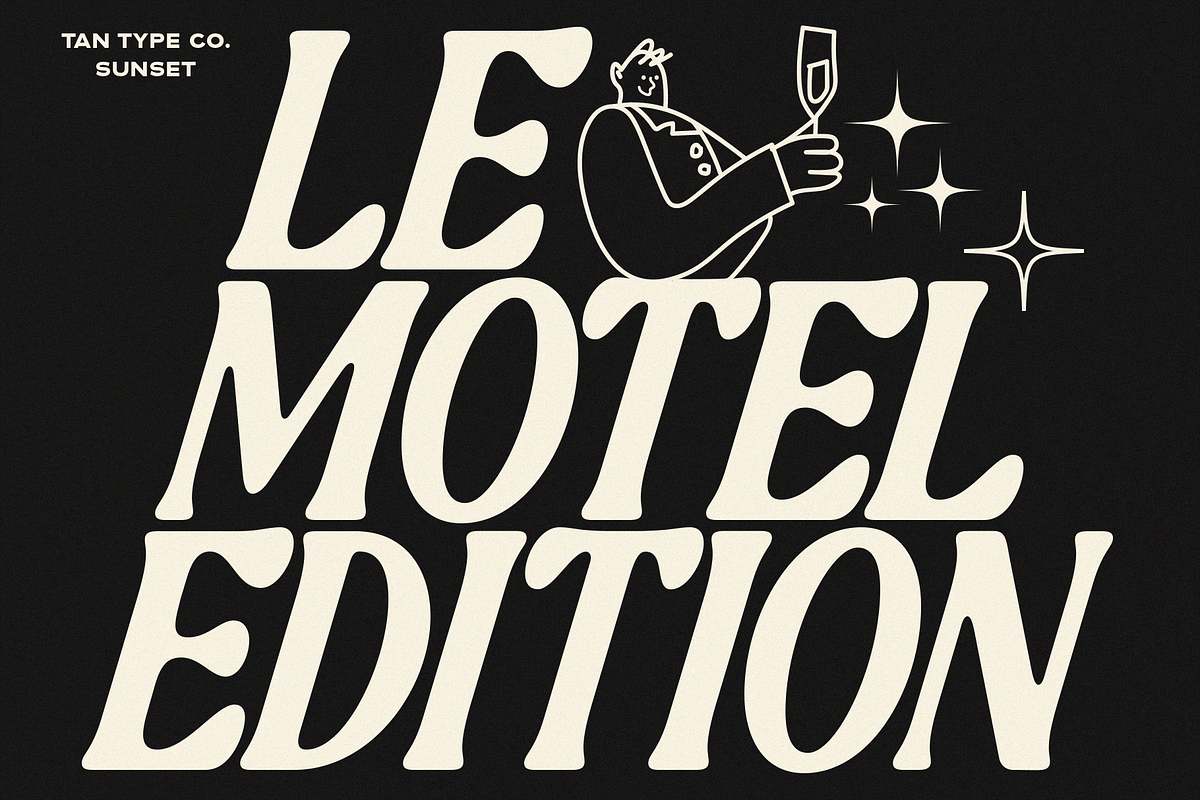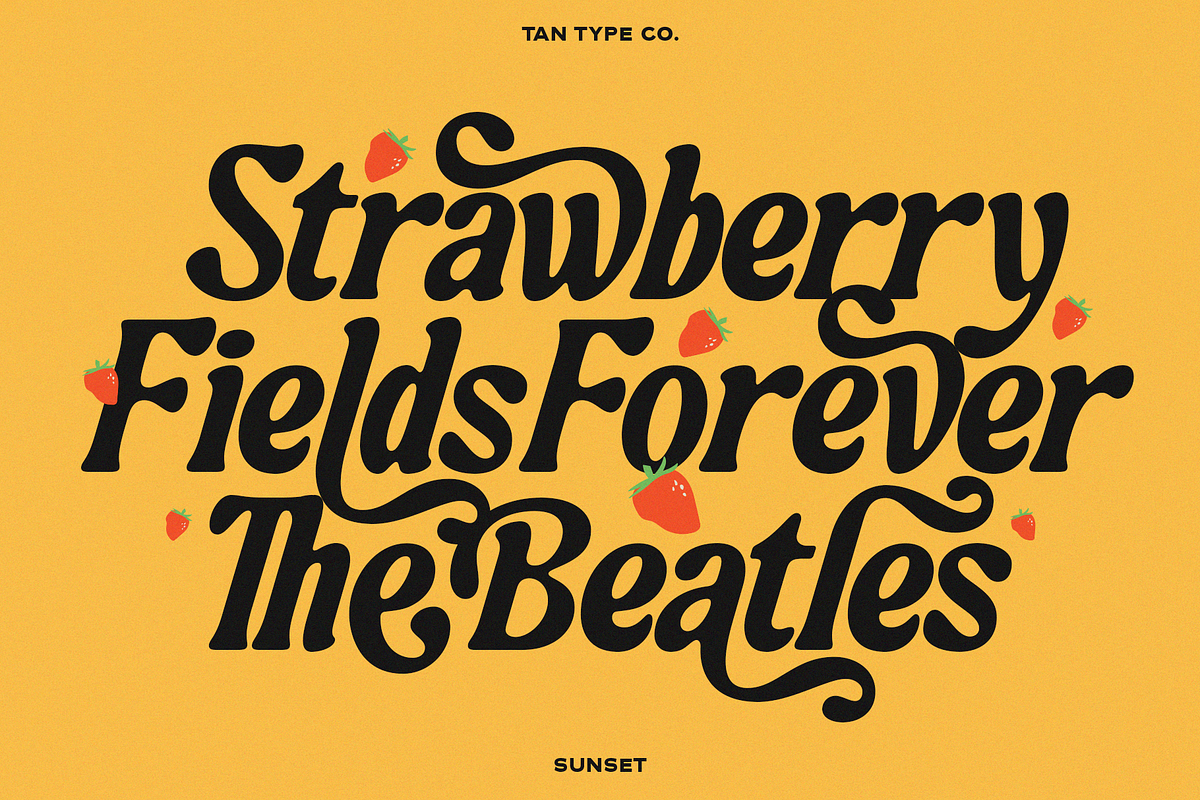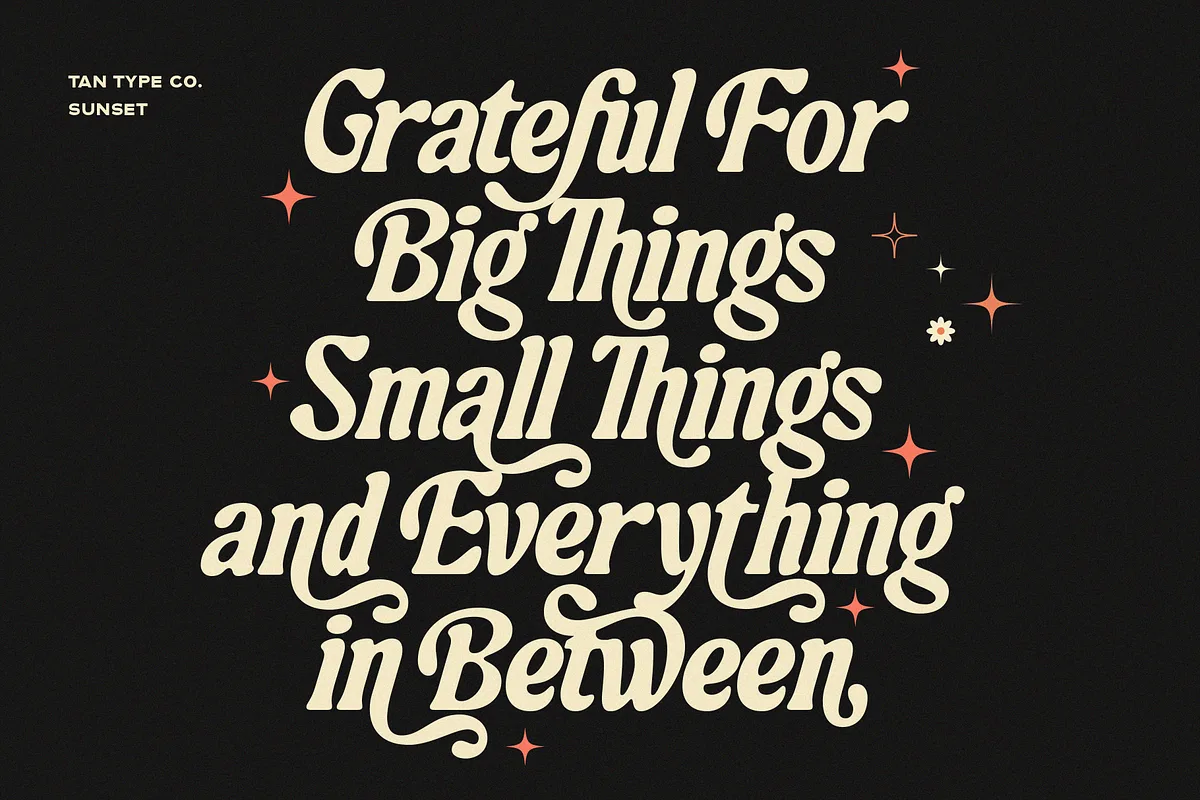
TAN - SUNSET Font
TAN – SUNSET Font
Say hello to Sunset, a playful summer script font that feels just like the last golden hours on the beach — warm, carefree, and unforgettable. Inspired by the sweetness of lingering summer days, Sunset brings together bold strokes and flirty curves in a way that’s both charming and effortlessly fun. It’s simple yet stylish, whimsical yet strong, like the perfect balance between sunshine and waves.
This font was made to capture that laid-back feeling of summer nostalgia, the kind that makes you smile without even realizing it. Use it for branding, packaging, wedding invitations, social media graphics, summer posters, or even just a handwritten quote that needs a touch of seaside charm. Its flowing letters add playfulness to any design while staying easy to read, so it works beautifully for logos, lifestyle projects, or anything that calls for a sweet, breezy vibe.
Let Sunset bring a little sunshine, a little sparkle, and a whole lot of personality to your creative projects. It’s more than just a font — it’s the memory of summer you can carry into every season.